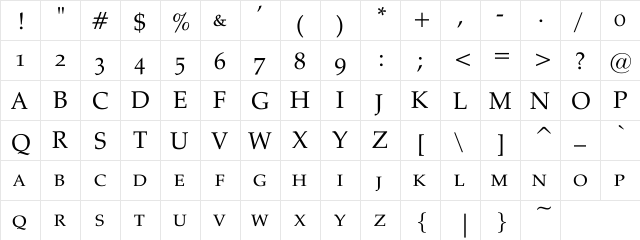
Palazzo Little Cap Regular Font Preview
Palazzo Little Cap Regular
Design Context for Palazzo Little Cap Typeface
Palazzo Little Cap offers clean, dependable letterforms without strong stylistic allegiance, making it a practical choice for designers who need flexibility.